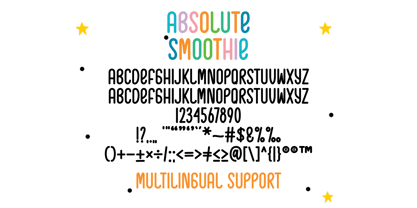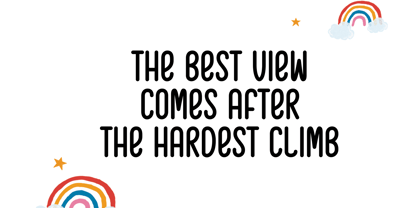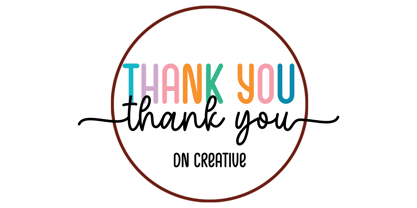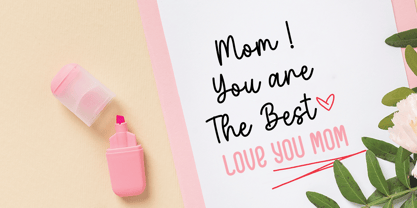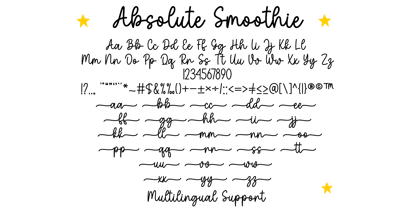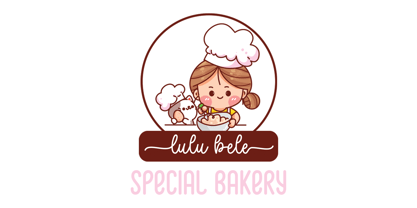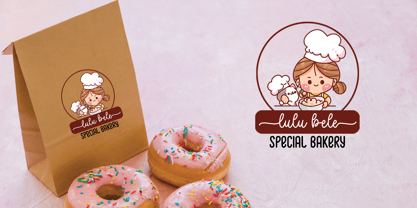
Absolute Smoothie
von Dania Graphix Studio
Die Schriftfamilie Absolute Smoothie wurde von entworfen und von Dania Graphix Studio veröffentlicht. Absolute Smoothie enthält 2 Stile und Familienpaketoptionen. Mehr über diese Familie
Absolute Smoothie Duo is a stylish and delicate duo font (sans serif and script) suitable for a wide spectrum of applications. From greeting cards to headlines, this font will guarantee a romantic touch to each of your creations! Absolute Smoothie Duo is PUA encoded which means you can access all of the glyphs and ligatures with ease.